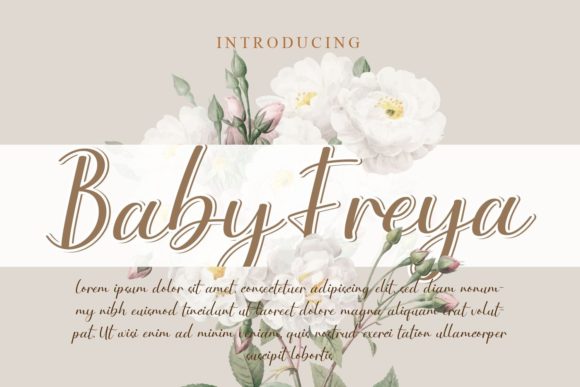
Baby Freya Font: The Elegant Handwritten Font for Personalized Designs
Baby Freya Font is a beautiful, elegant handwritten font that has captured the hearts of designers and crafty enthusiasts alike. With its lovely flow and personalized style, it’s perfect for a variety of designs, including wedding invitations, thank you cards, weddings, greeting cards, logos, and more. In this article, we’ll explore the features and benefits of Baby Freya Font, and how it can elevate your designs to the next level.
What is Baby Freya Font?
Baby Freya Font is a type of handwritten font that exudes elegance and sophistication. It’s designed to mimic the flow and natural movement of handwriting, making it perfect for designs that require a personal touch. The font features beautiful, cursive letters with a subtle flair, giving it a unique and distinctive look.
Features of Baby Freya Font
- Elegant Handwritten Style: Baby Freya Font boasts an elegant handwritten style that’s perfect for designs that require a touch of sophistication.
- Lovely Flow: The font features a lovely flow that’s reminiscent of natural handwriting, making it easy to read and visually appealing.
- Personalized Style: Baby Freya Font is perfect for designs that require a personalized style, such as wedding invitations, thank you cards, and greeting cards.
- Versatile: The font is versatile and can be used for a variety of designs, including logos, branding, and packaging.
Benefits of Using Baby Freya Font
Using Baby Freya Font can bring numerous benefits to your designs. Here are a few:
- Adds a Personal Touch: Baby Freya Font adds a personal touch to your designs, making them more relatable and engaging.
- Creates a Unique Look: The font’s unique and distinctive look helps to create a unique visual identity for your brand or design.
- Elegant and Sophisticated: Baby Freya Font adds an air of elegance and sophistication to your designs, making them perfect for high-end brands or special occasions.
- Easy to Read: The font is easy to read, making it perfect for designs that require a clear and concise message.
How to Use Baby Freya Font
Using Baby Freya Font is easy and straightforward. Here are a few tips to get you started:
- Choose the Right Size: Choose a size that’s suitable for your design. Baby Freya Font looks great in a variety of sizes, from small to large.
- Pair with Other Fonts: Pair Baby Freya Font with other fonts to create a unique and visually appealing combination.
- Use for Headings and Titles: Use Baby Freya Font for headings and titles to add a touch of elegance and sophistication.
- Experiment with Colors: Experiment with different colors to find the perfect match for your design.
Baby Freya Font in Wedding Designs
Baby Freya Font is a popular choice for wedding designs, including wedding invitations, thank you cards, and wedding stationery. The font’s elegant and sophisticated look makes it perfect for formal and informal weddings alike.
- Wedding Invitations: Use Baby Freya Font to create beautiful and elegant wedding invitations that set the tone for your special day.
- Thank You Cards: Use the font to create personalized thank you cards that express your gratitude to your loved ones.
- Wedding Stationery: Use Baby Freya Font to create a cohesive look for your wedding stationery, including programs, menus, and place cards.
Baby Freya Font in Branding and Packaging
Baby Freya Font can also be used in branding and packaging to add a touch of elegance and sophistication. Here are a few ways to use the font:
- Logo Design: Use Baby Freya Font to create a beautiful and elegant logo that reflects your brand’s personality.
- Product Packaging: Use the font to create visually appealing product packaging that stands out on store shelves.
- Marketing Materials: Use Baby Freya Font to create marketing materials, such as brochures, flyers, and business cards, that showcase your brand’s elegance and sophistication.
In conclusion, Baby Freya Font is a beautiful and elegant handwritten font that’s perfect for designs that require a personalized style. With its lovely flow and sophisticated look, it’s ideal for wedding designs, branding, packaging, and more. Whether you’re a designer or a crafty enthusiast, Baby Freya Font is a great choice for adding a touch of elegance and sophistication to your designs.
- What is Baby Freya Font?: Baby Freya Font is a beautiful, elegant handwritten font that’s perfect for designs that require a personalized style.